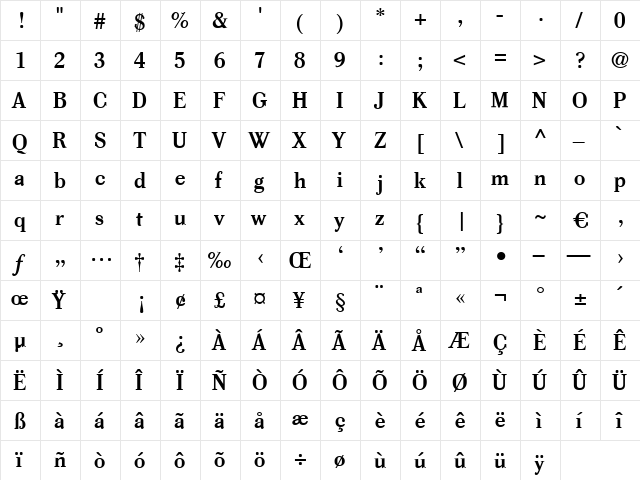
Valence Regular
Design Context for Valence Typeface
Valence offers clean, dependable letterforms without strong stylistic allegiance, making it a practical choice for designers who need flexibility.
Pro Tip: Pair Valence with a font of contrasting weight or personality to build a more expressive typographic hierarchy.